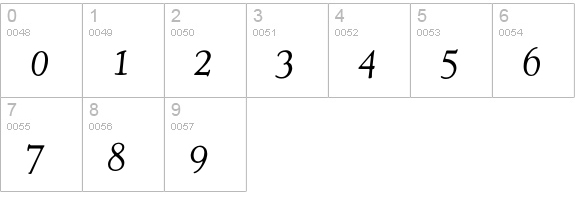
Cooper Old Style Italic is a distinctive, italic variant in the Cooper typeface family \xE2\x80\x94 well suited to design and typography projects.
Introducing Cooper Old Style Italic font, a timeless and elegant typeface that exudes sophistication and charm. With its subtle slant and classic design, this font is perfect for adding a touch of vintage flair to any project. The flowing curves and unique letterforms of Cooper Old Style Italic give your text a sense of grace and beauty. What's even better is that Cooper Old Style Italic font is available for free download at FontsMarket.com. You can easily add this versatile font to your collection and use it in a variety of design projects, from invitations to branding to signage. Embrace the timeless appeal of Cooper Old Style Italic and elevate your designs with its distinctive charm.